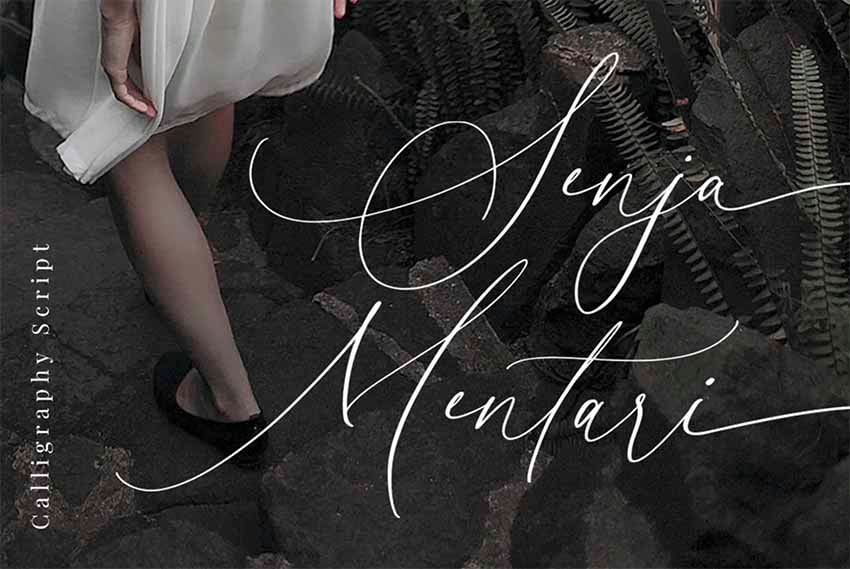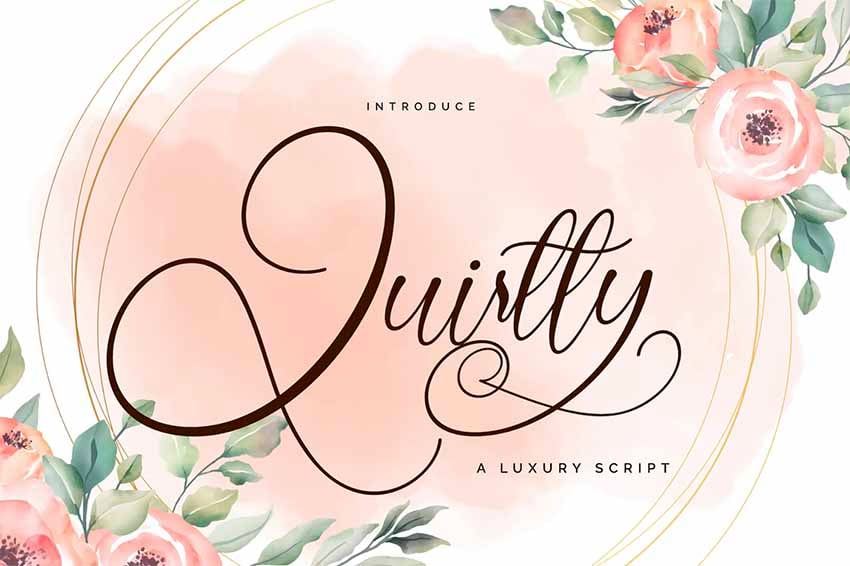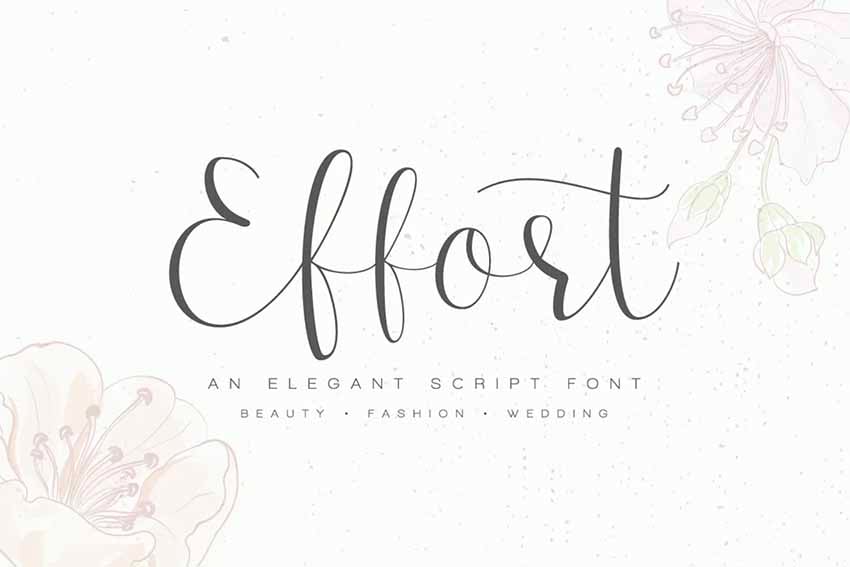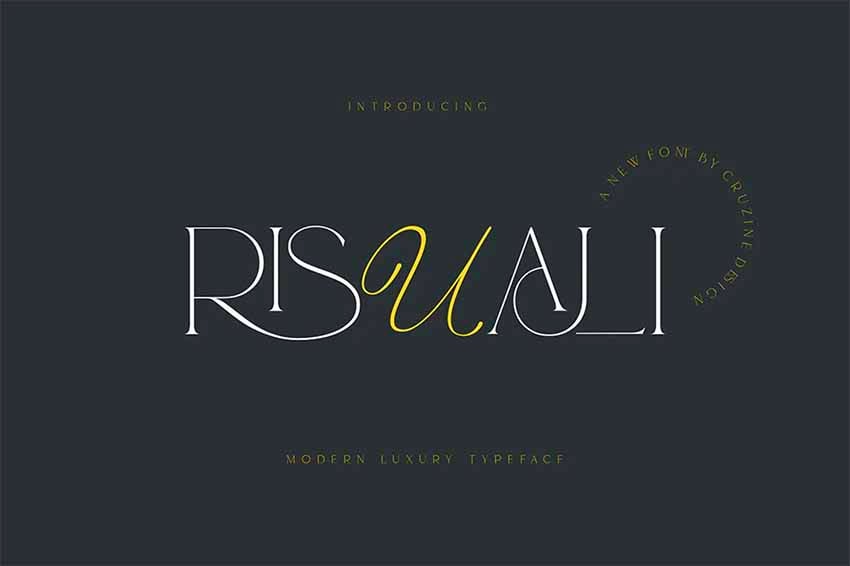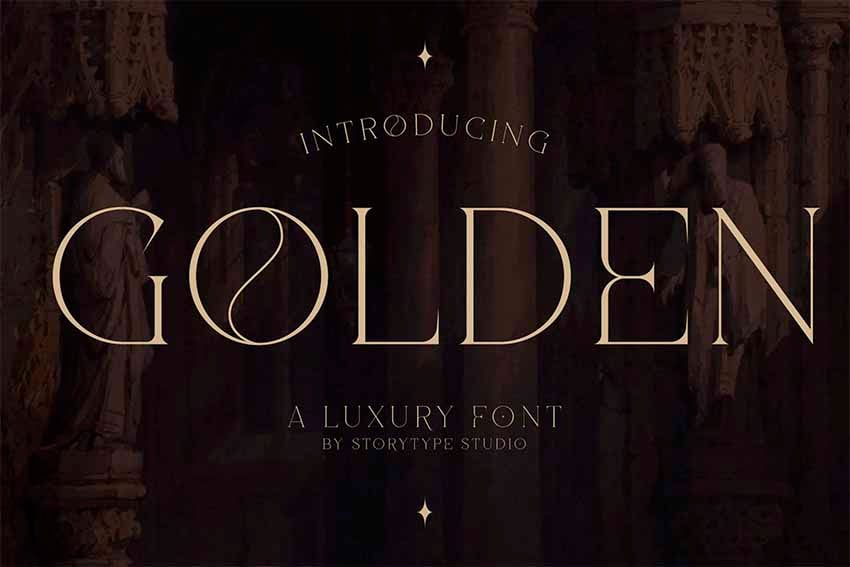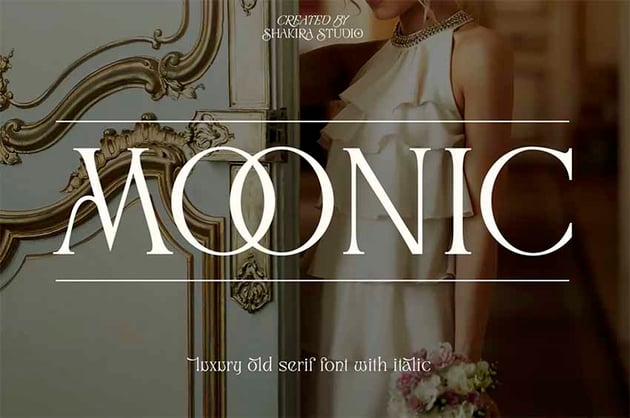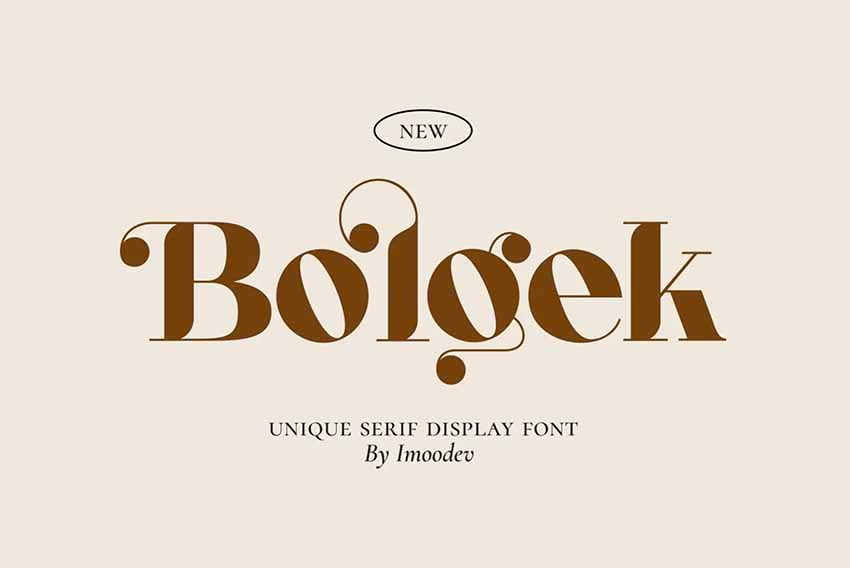
44 Most Elegant Luxury Fonts (Stylish Classy Fonts to Download)
If you're curious about what fonts yell luxury, check out this collection of the best elegant fonts available from Envato Elements.
1. Rollgates Luxury Font (OTF, TTF)
Rollgates Luxury font is classic, elegant, and modern. The medium contrast between the thick and thin strokes accentuates the richness that it represents. Use this luxury bold font for wedding invitations, magazine layouts, and projects that need a vintage and sleek flair.
2. Glamore Luxury Display Serif (OTF, TTF, WOFF, WOFF2)
Inspired by famous modern-style typefaces, Glamore Luxury font has small serifs and beautiful curved details. There are plenty of standard glyphs to choose from that can enhance templates and brochures. This stylish, classy font is also one of the best classy fonts for logos.
3. Runaltu Luxury Font (OTF, TTF, WOFF)
The Runaltu luxury font has been designed specifically for display. With its classy look, this luxury font has beautifully designed character shapes. The small flared end strokes almost make it look as if they have been drawn with a brush. Use this elegant typeface for social media, magazine layouts, and branding.
4. Luxury Quality (OTF, TTF)
Let's go back to the times of penmanship. This monoline elegant fancy script font is modern with a handmade touch. While the end curves are rounded, what makes this luxury font a hit is the angle at which the script was designed. Use this expensive font style for home decor, quotes for your walls, and even wedding invitations.
5. Anttelope Luxury Calligraphy (OTF, TTF, WOFF)
Calligraphic fonts have come back to stay. Anttelope Luxury font is ready to be used in those romantic projects. With so many lovely ligatures and swashes, you can be sure your projects will have that human touch. Use it for wedding stationery, labels, photography, and even packaging.
6. Kastury Luxury Script Font (OTF, TTF)
Have you ever tried using fountain pens? It's one of the hardest things to master. Luckily for us, we have Kastury, a handwritten luxury script font that looks beautiful and custom-made. The elegant curves at the beginning and end of the letters just scream opulence. Use this high-end font in fashion, branding, and blog headers.
7. Bordermile Luxury Script (OTF)
If you're looking for the biggest swash selection, Bordermile should be your number one choice. This luxury script comes with many swashes that can elevate your designs and add so much elegance. The pack also comes with beautiful vintage frames to use for wedding invitations, branding, and packaging.
8. Swadery Luxurious Font (OTF, TTF, WOFF)
Explore many different outcomes with Swadery. This luxurious line typeface has a beautiful, natural curve to it that mimics real-life handwriting. It includes many ligature options, swashes, and stylistic sets that stay true to real-life penmanship. Use this high-end font for invitations, social media posts, and label making.
9. Denike Stylish Modern Serif (OTF, TFF, WOFF)
Luxurious line typefaces often have soft swashes and curves that can make a font look premium. Denike has plenty of them; each character has a unique curve to it. Some of the connecting ligatures also include thin curves that can enhance any word. This is also one of the best classy fonts for logos.
10. Kenoky Typeface Luxury Font (OTF, TTF, WOFF2)
This eye-catching luxury font is unique and elegant. Kenoky features unusual characters that look modern with their rethought curves. This serif font also features teardrop endings that are normal in script fonts. This is one of the best classy fonts for logos, as well as food-related or home decor branding.
11. Glamode Glamour and Stylish Serif (OTF, TTF, WOFF, WOFF2)
Glamode features a thin slab serif and small details that make the font look architectural. Each character has either an interesting curve or an inner cut that makes it unique. Use this expensive font style for fashion-related projects, classy editorial design, and invitations.
12. Cassavania Signature Elegant Luxury Font (OTF, TTF)
This energetic calligraphic-style font comes with multiple alternative characters. Cassavania is great for adding a signature touch to your projects. Elevating graphics is a way to make things look luxurious, and Cassavania gives you that option. Use this chic typography for business cards, quotes, and posters.
13. Frenchasette Signature Script Font (OTF, TTF)
Light contrast, high quality, and casual. While this is a stripped-down script font, Frenchasette still has elegance. Mix it with a serif or a sans serif font, and you're set to create something regal. Use this elegant font as display text for social media, book covers, and movie titles.
14. Giftcage Elegant Beauty Condensed Serif (OTF, TTF, WOFF, WOFF2)